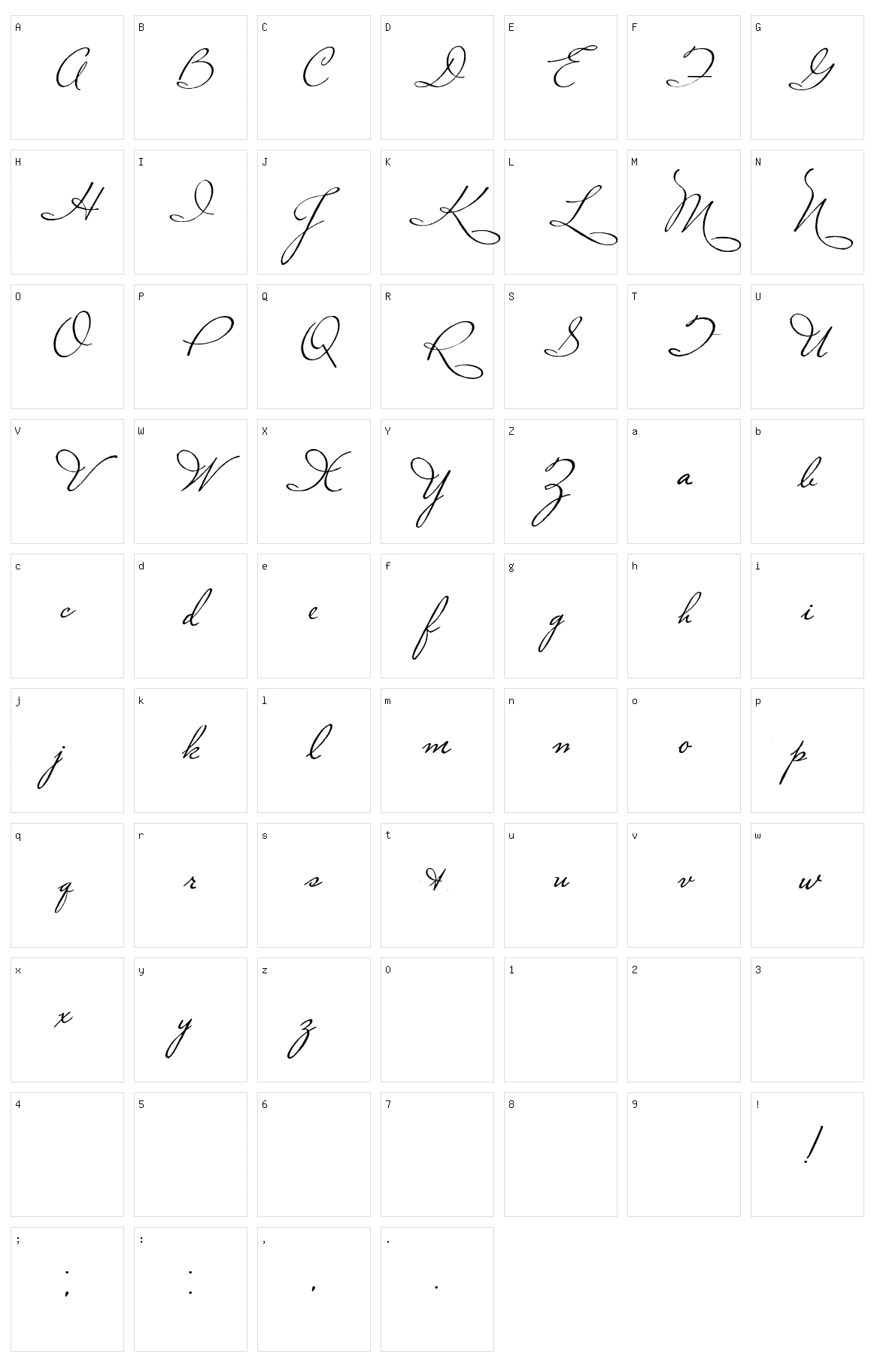
The free font Plaster of Paris is carefully designed by Intellecta Design, showcasing a thoughtful balance of creativity and usability and falls under the Script font style. When you download the ZIP file, it contains only 671.39 KB of font files, making it lightweight and quick to download. Please review the license details below to understand permitted usage and distribution rights. If license information is not available, we recommend using this font for personal projects only or contacting the author directly for commercial usage permissions.